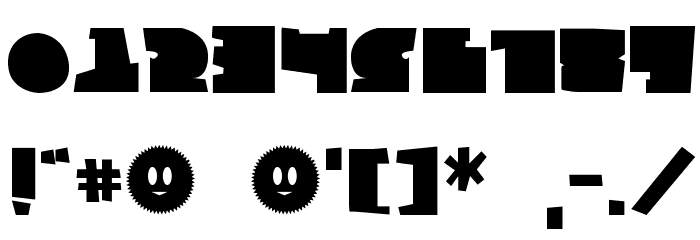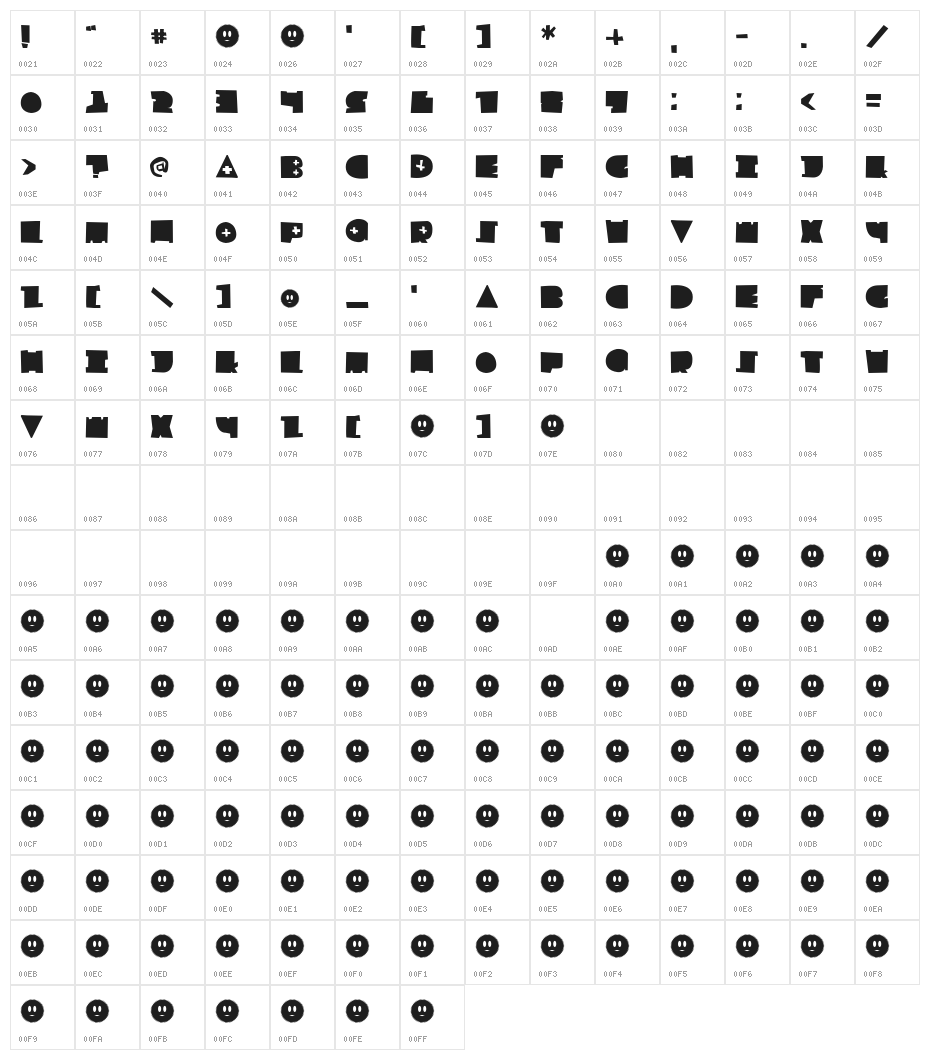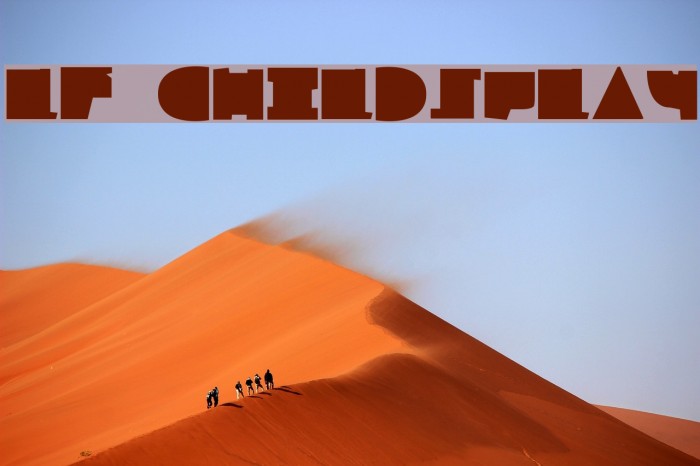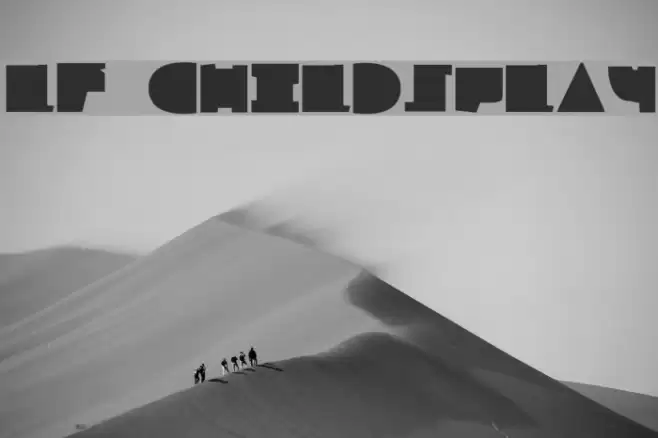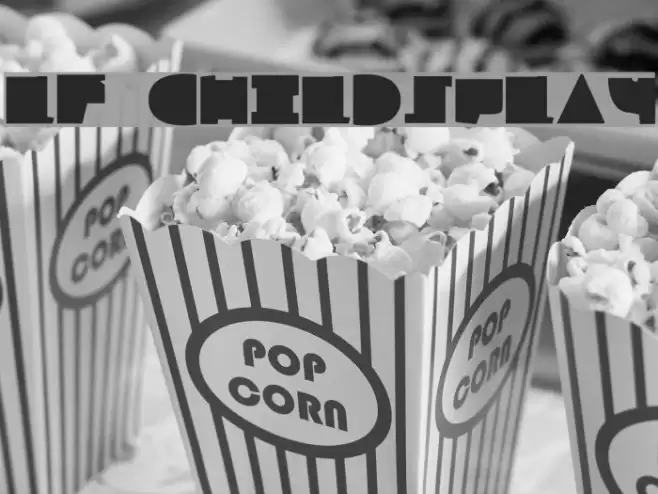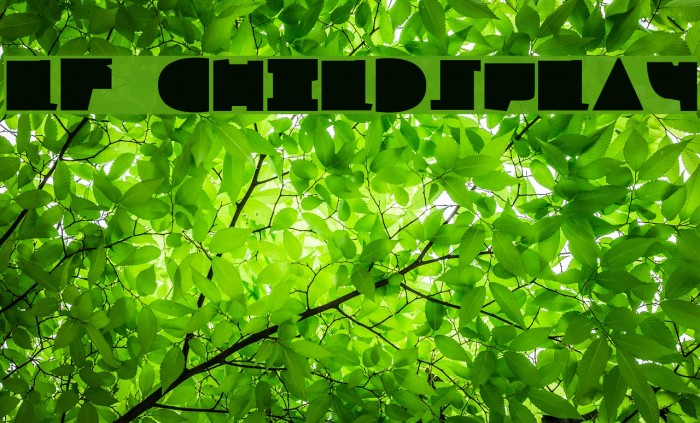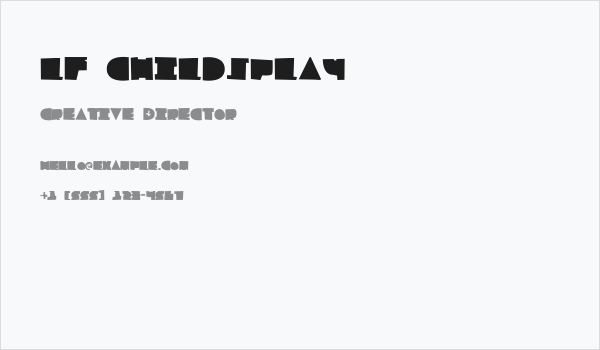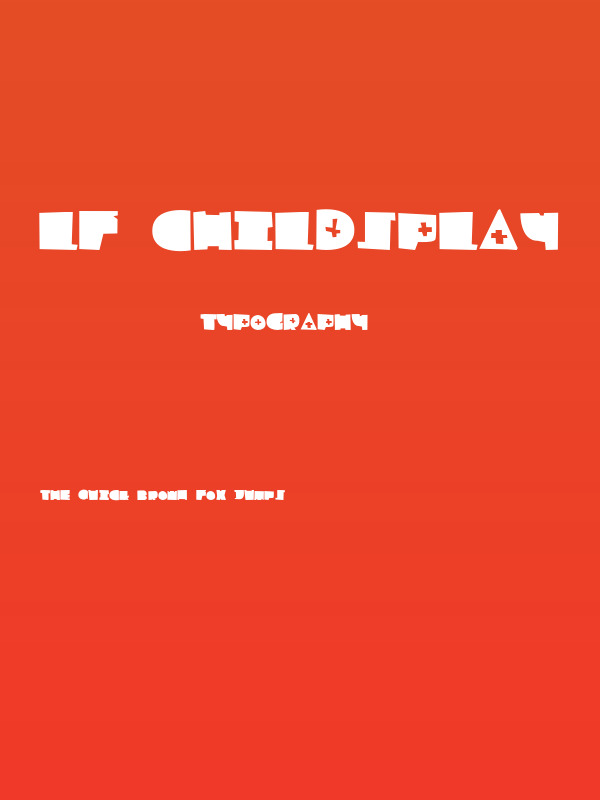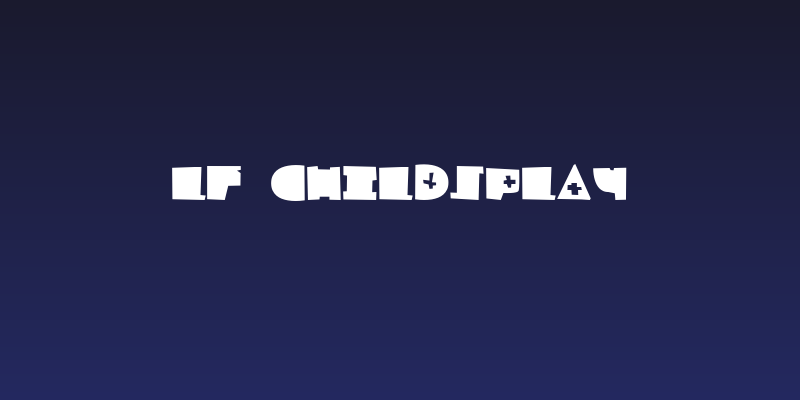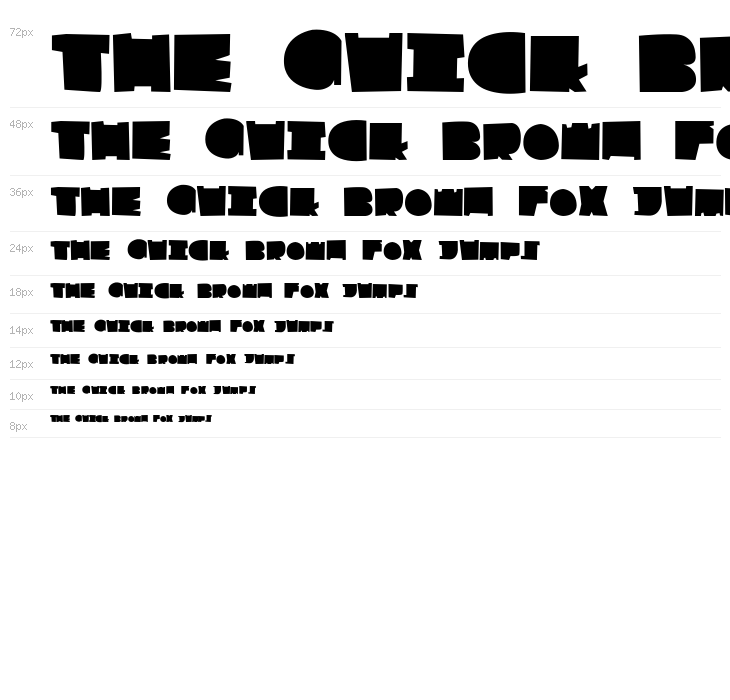
LF Childsplay Font
LF Childsplay Description
This playful and bold font features a unique, whimsical design with geometric shapes and cut-out elements. The characters are heavily stylized, with a chunky appearance that gives them a strong visual presence. Each letter incorporates playful elements, such as stars and circles, adding a fun and dynamic feel. The font is highly decorative, making it ideal for creative and informal projects. Its boldness ensures it stands out, while the quirky design elements add a touch of humor and creativity.
| Overall Style | Playful, Whimsical, Decorative |
| Proposed Projects | Ideal for children's book covers, playful posters, toy packaging, and creative branding projects. |